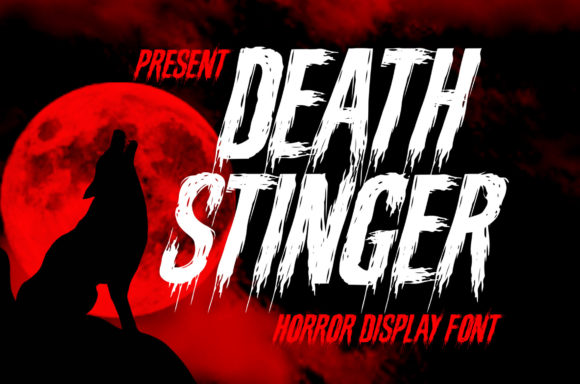
Welcome to the realm of darkness, where the letters dance with a sinister charm. Death Stinger –– the epitome of horror and intrigue awaits you. This hand-lettered font is ready to cast its spell on your designs. Be the master of chills and thrills with Death Stinger, the ultimate font for Halloween posters, logos, and any project seeking an eerie touch.
With its sharp edges and spine-tingling curves, Death Stinger will add a haunting beauty to your creations. Unleash your dark imagination and let this font take you on a journey into the unknown. It’s perfect for evoking a sense of mystery and suspense in your designs.
From posters that whisper tales of terror to logos that command attention, Death Stinger is the font that will make your projects stand out. Let it be the voice of your nightmares, the harbinger of your wildest dreams. Enter the realm of the macabre and let Death Stinger lead the way.
Immerse yourself in a world of shadows and let this font ignite your creative spark. Death Stinger is the key to unlocking a world of endless possibilities. Dare to embrace the darkness and let your designs come alive with the power of Death Stinger.
With its versatility, it seamlessly adapts to various design needs. From logos that demand attention to posters that speak louder than words, Death Stinger is the font that captivates. Let it be the voice of your brand, the echo of your creativity.